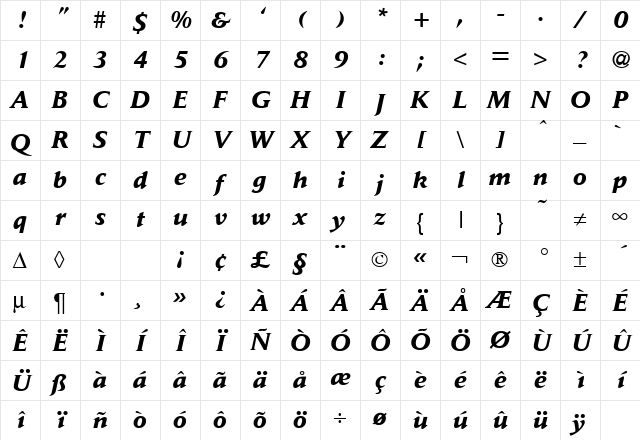
Daylight BoldItalic
Design Context for Daylight
Daylight is a composed and adaptable typeface that performs quietly and consistently across a wide range of design contexts. The slanted form adds forward momentum and visual energy. Its bold stroke weight gives it real presence on the page.
Pro Tip: Use Daylight for emphasis, pull quotes, and subheadings where its slanted energy can add rhythm to the layout.